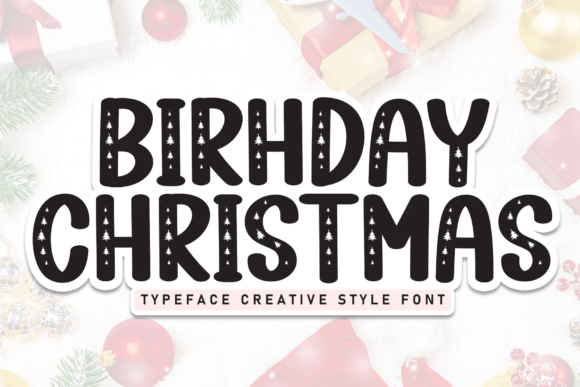
The Magical Birthday Christmas Font: A Designer’s Dream Come True
It’s the most wonderful time of the year – and I’m not just talking about Christmas! As a designer, I’ve had my fair share of holiday-themed projects, but one font that has truly stolen my heart is the Birthday Christmas Font. Imagine a bold, statement font where tiny Christmas trees nestle inside the lines of each letter – it’s a festive touch that’s sure to make your designs merry and bright!
A Moment of Design Frustration (That Led to Joy)
I recall working on a last-minute Christmas card project for a client, desperately searching for the perfect font to match their festive theme. I scrolled through page after page of Google results, but nothing seemed quite right. That was until I stumbled upon the Birthday Christmas Font. Its unique blend of bold lines and whimsical Christmas trees instantly captured the essence of the holiday season. I knew right then and there that I had found the perfect fit for my project!
- ✨ The font’s bold lines and tiny Christmas trees create a delightful visual effect that’s sure to grab attention.
- ✅ It’s incredibly versatile – perfect for holiday-themed designs, Christmas cards, and festive party invitations.
- 🎉 The font’s playful personality adds a touch of whimsy to any design.
While the Birthday Christmas Font is a stunning addition to any design, there are a few things to keep in mind:
- ⚠️ The font’s bold lines and intricate details can make it challenging to read at smaller sizes.
The Story Behind the Font: A Designer’s Inspiration
The Birthday Christmas Font was created by a talented designer who wanted to capture the magic of the holiday season in a single font. Inspired by childhood memories of decorating Christmas trees and singing festive carols, the designer set out to create a font that would bring joy and whimsy to designs. The result is a font that’s both playful and sophisticated – perfect for adding a touch of holiday cheer to any project.
Q: What type of designs is the Birthday Christmas Font best suited for?
A: The Birthday Christmas Font is perfect for holiday-themed designs, Christmas cards, festive party invitations, and more!